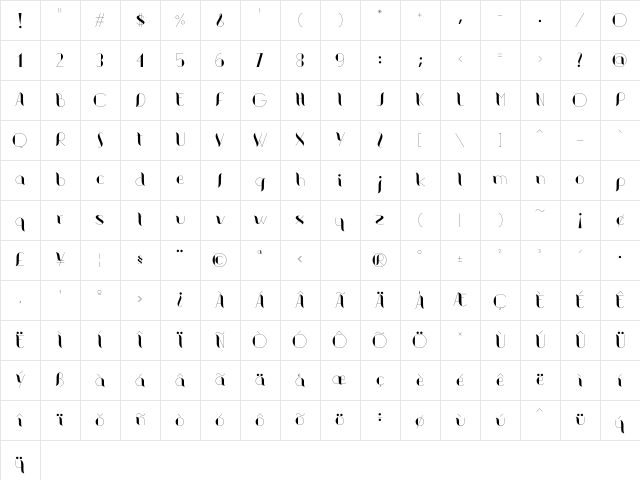
Valerie Medium
Design Context for Valerie
Valerie is a composed and adaptable typeface that performs quietly and consistently across a wide range of design contexts.